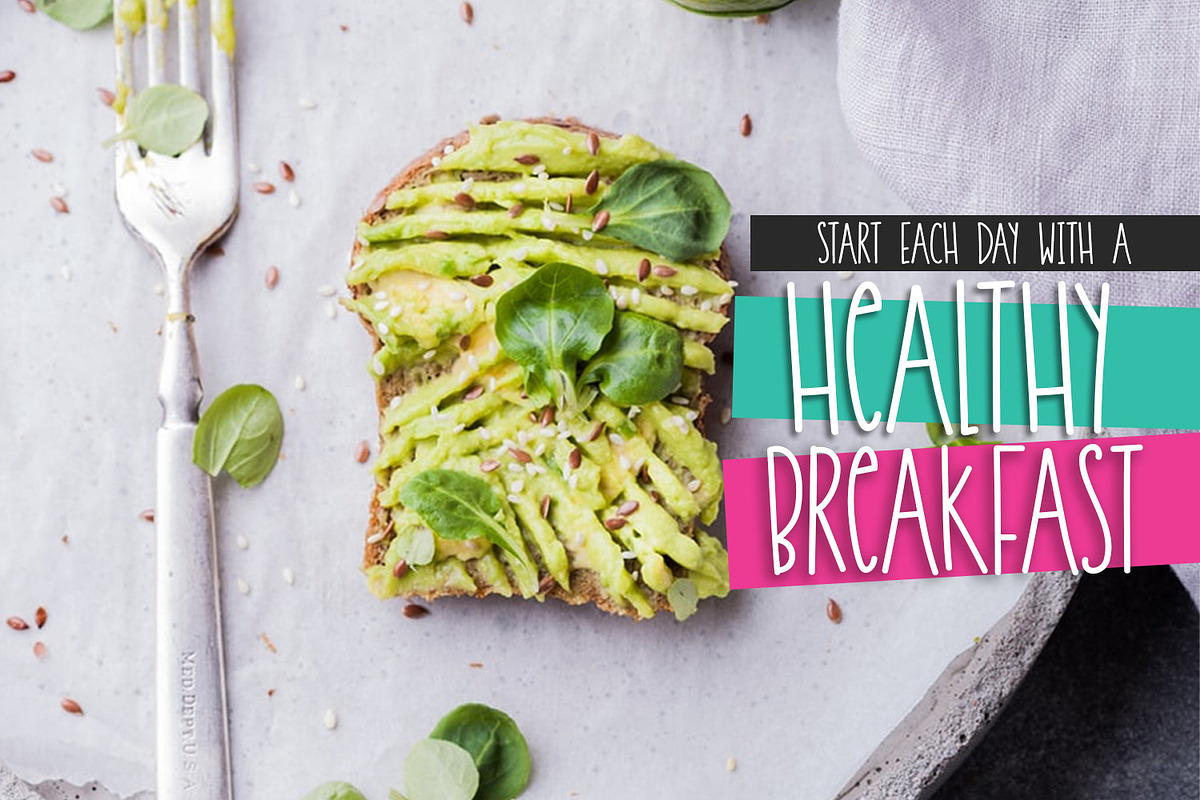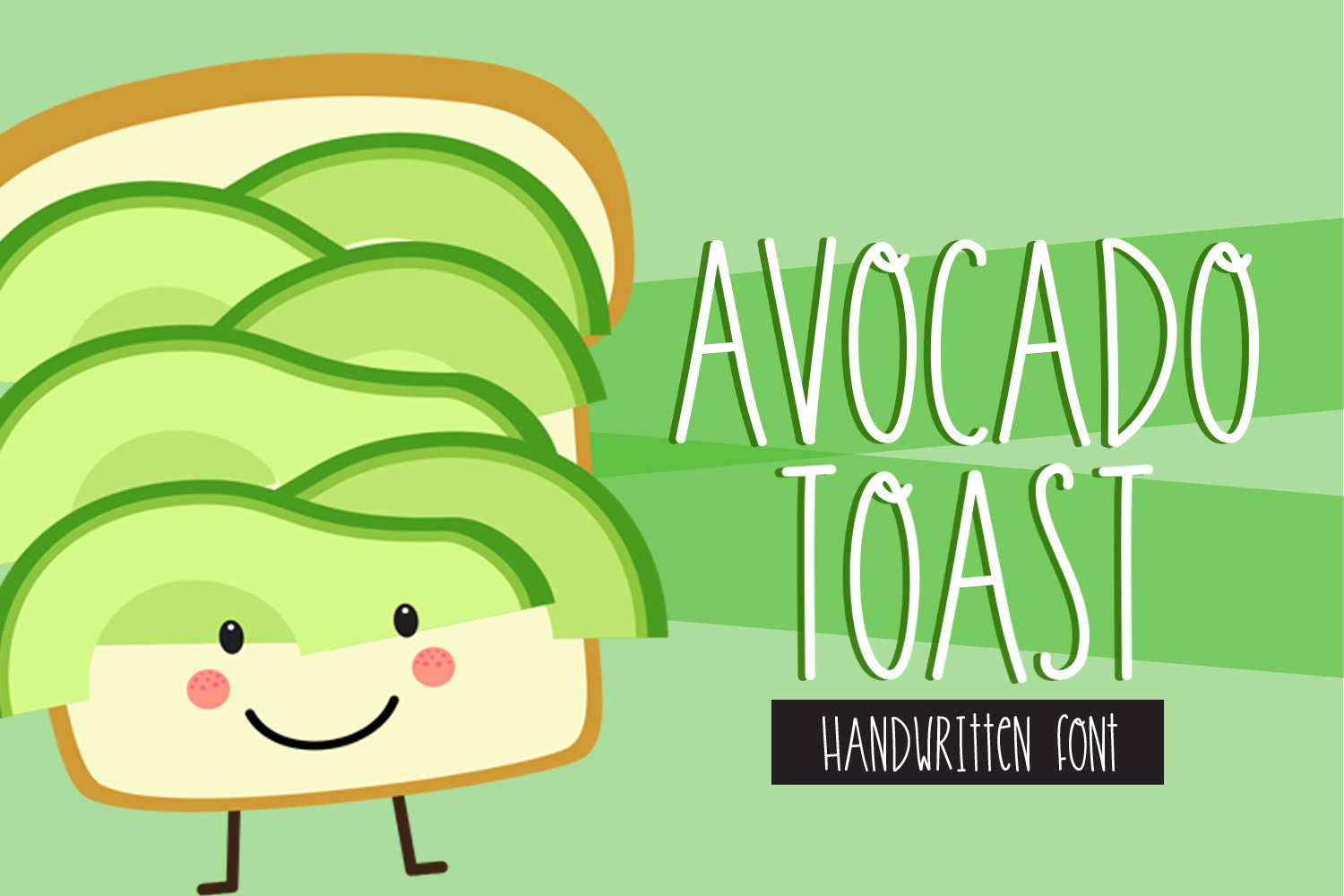
Avocado Toast Handwritten Font
Avocado Toast Handwritten Font is a tall, skinny, mostly all caps handwritten font. It is a great font for creating farmhouse kitchen labels and many other designs. I have made this an ideal font for Cricut and Silhouette crafters by making sure each letter is as smooth as possible for ultimate cut performance with vinyl.